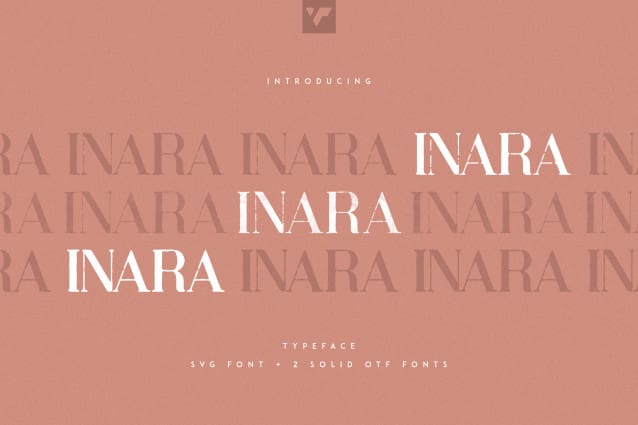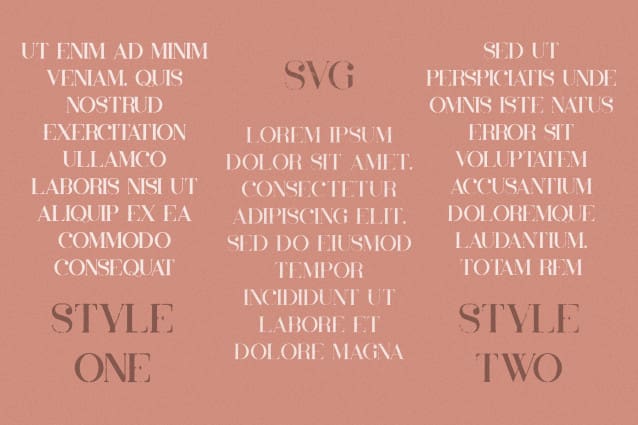
Inara Font
Inara Font is perfect for branding projects, home-ware designs, product packaging, magazine headers – or simply as a stylish text overlay to any background image.